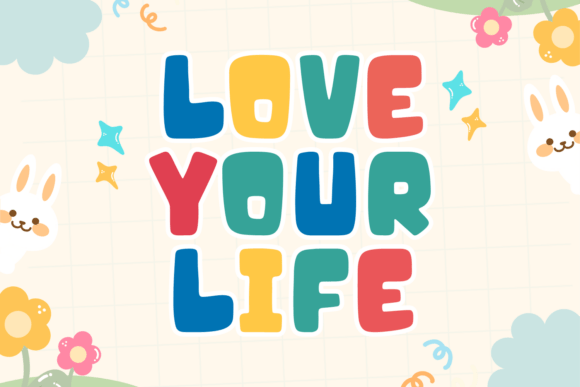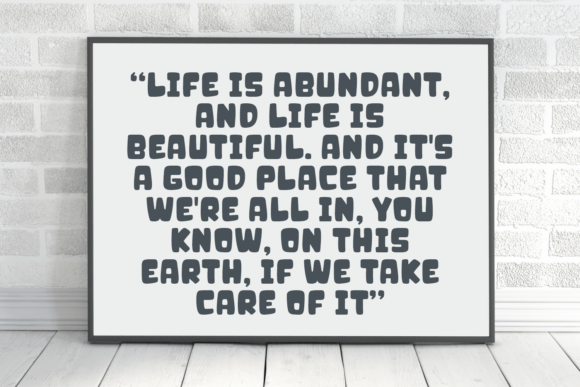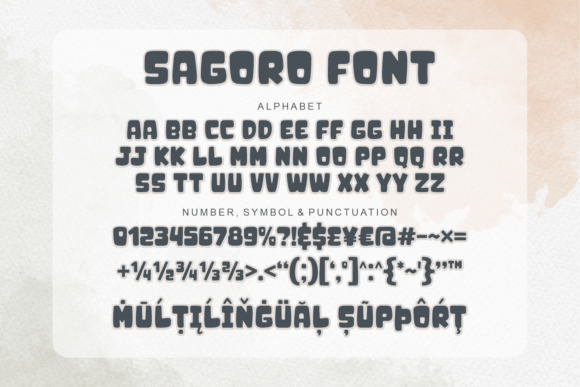
Introduction to Sagoro Font
The Sagoro font is a typeface that emphasizes boldness and playfulness.
All letters have strongly rounded corners, giving them a soft and friendly appearance This contributes to the “playful” aspect of the font.
Key Features of Sagoro Font